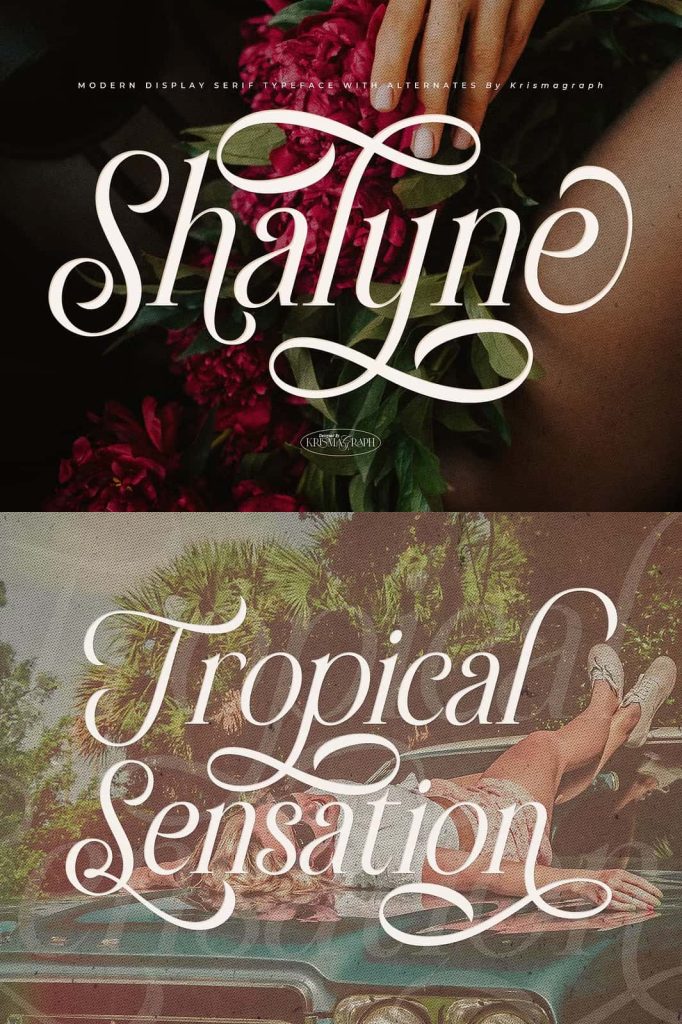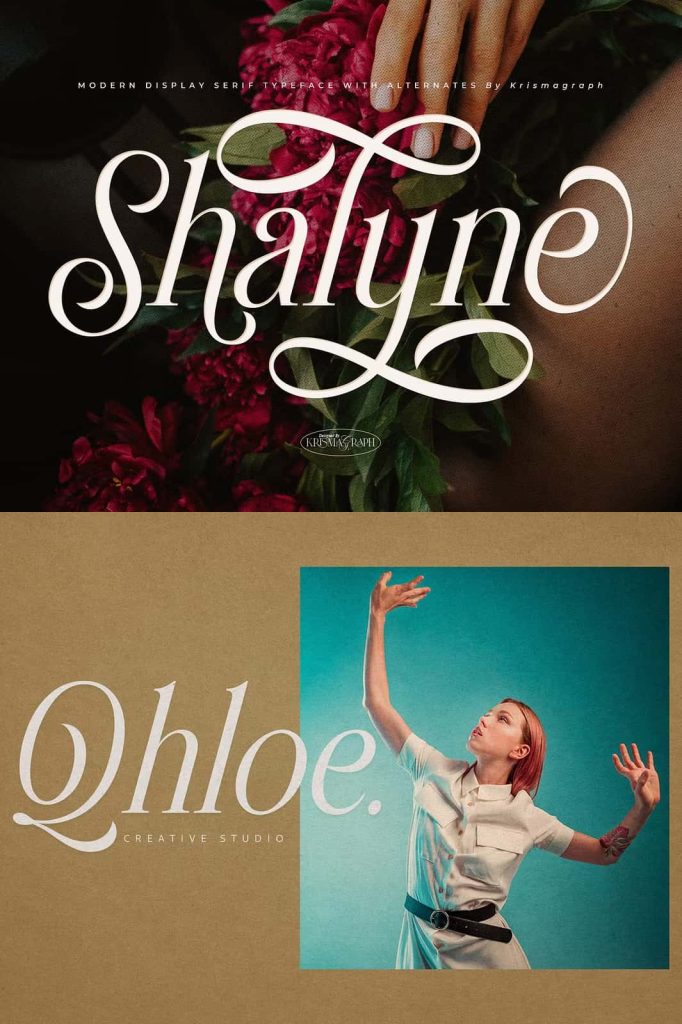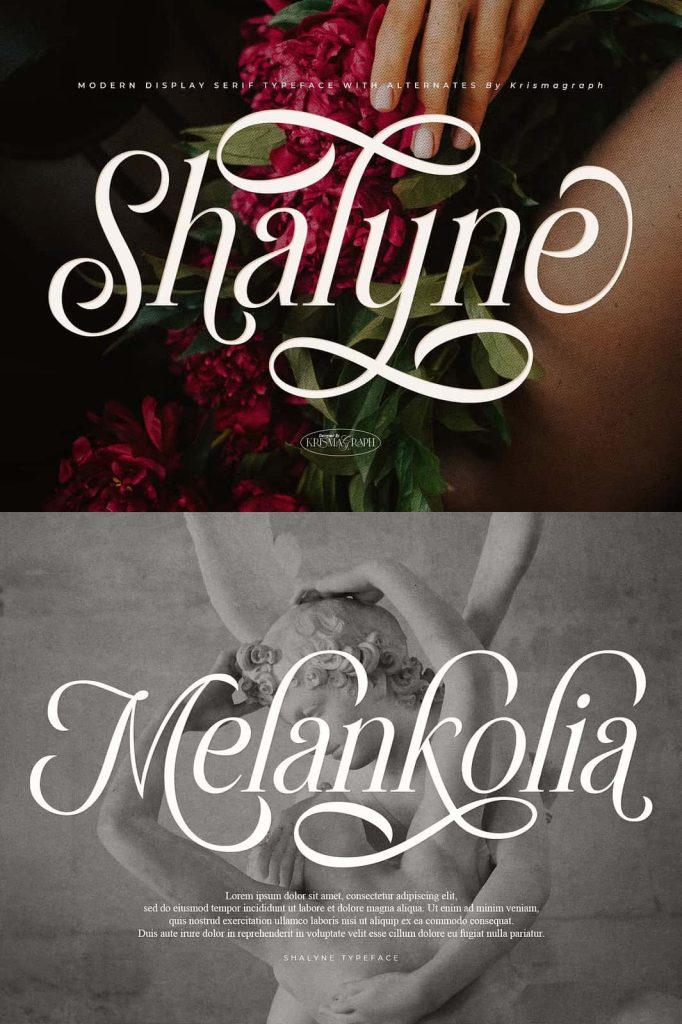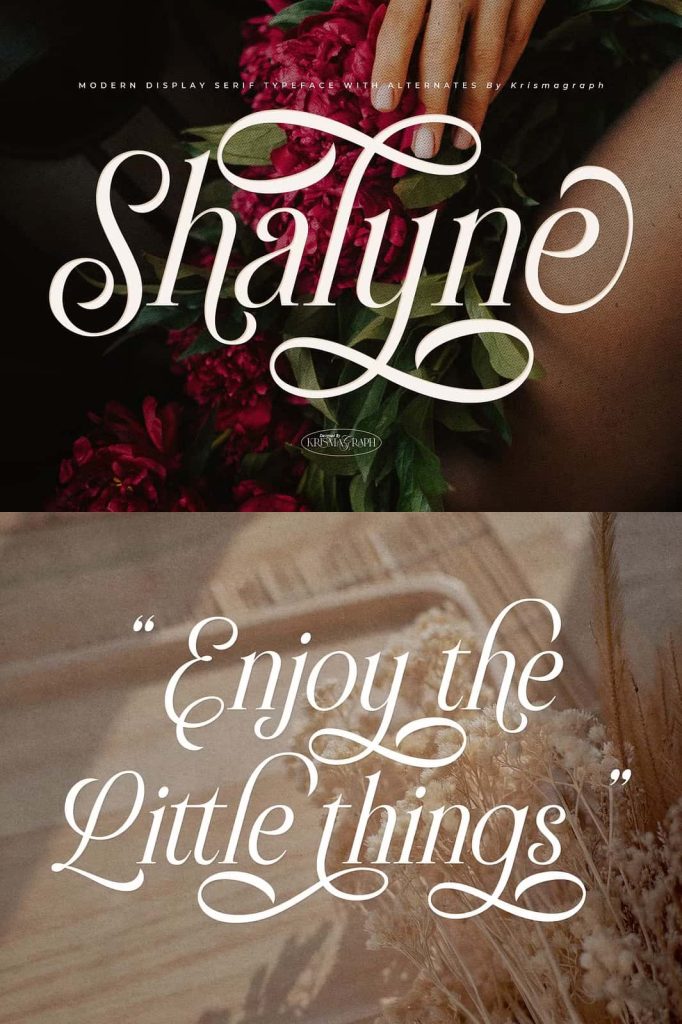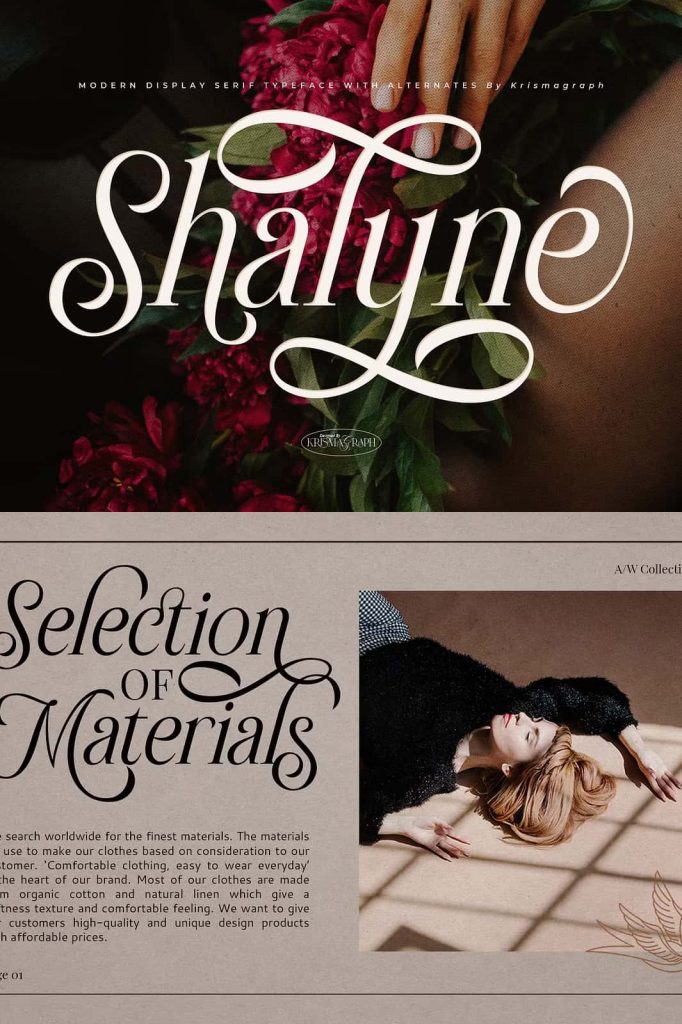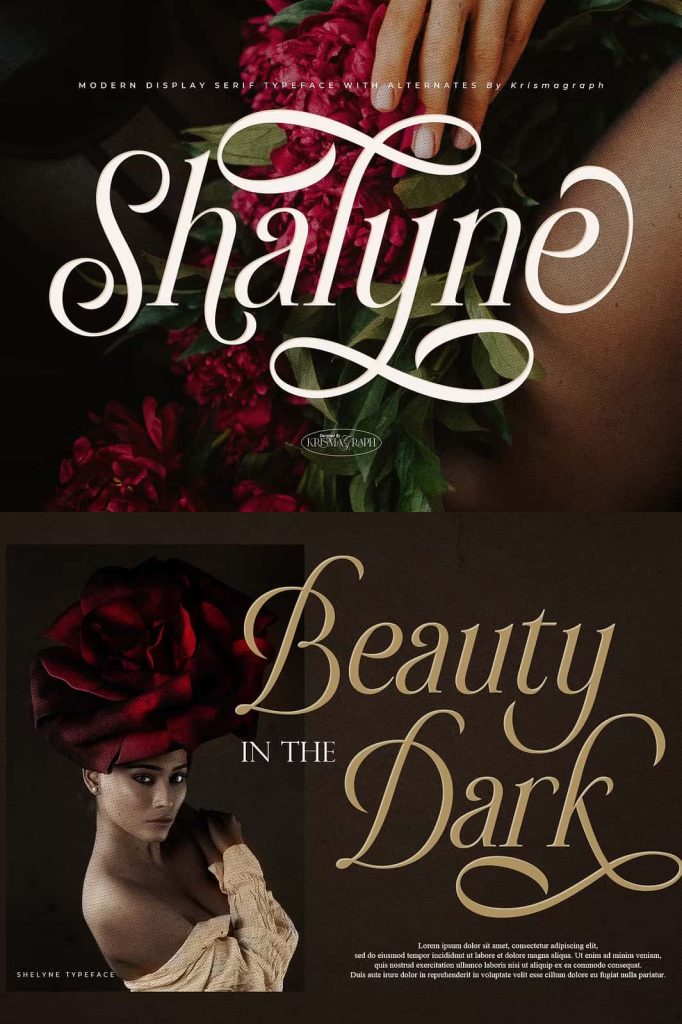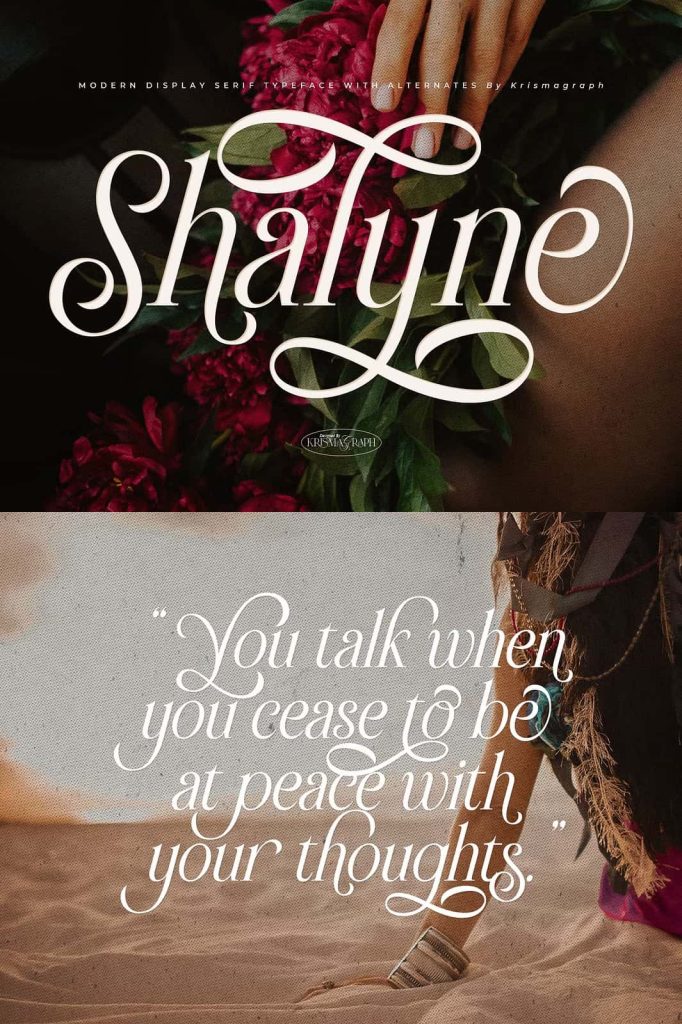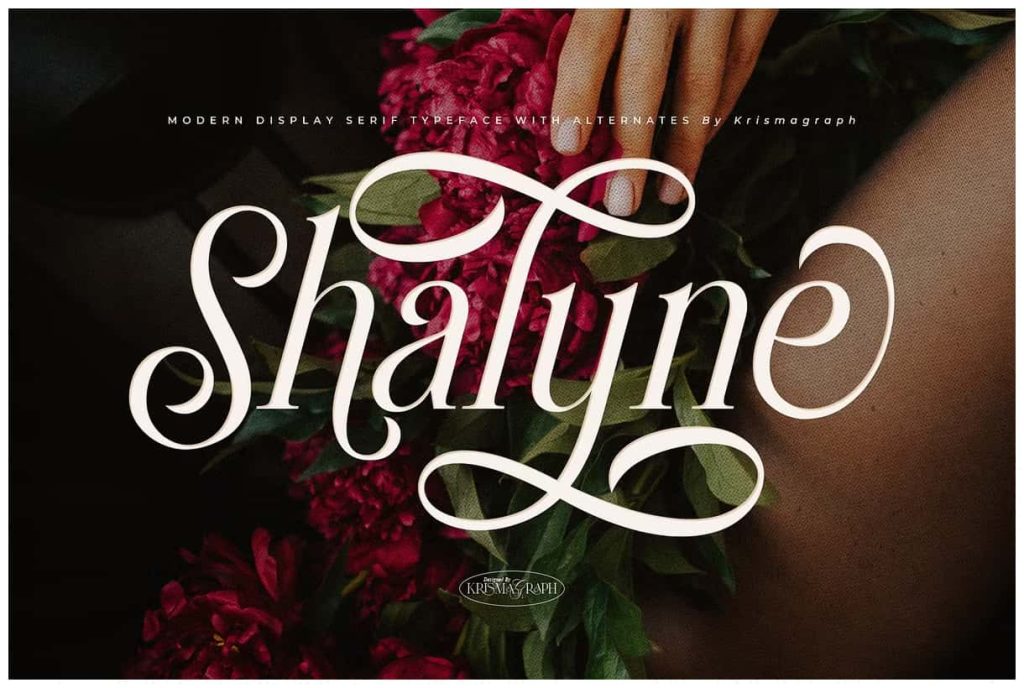
Shalyne | Modern Display SerifleastedJune 13, 2025Fonts Unleash the charm of Shalyne Typeface, an elegant italic serif font designed to perfection. Download